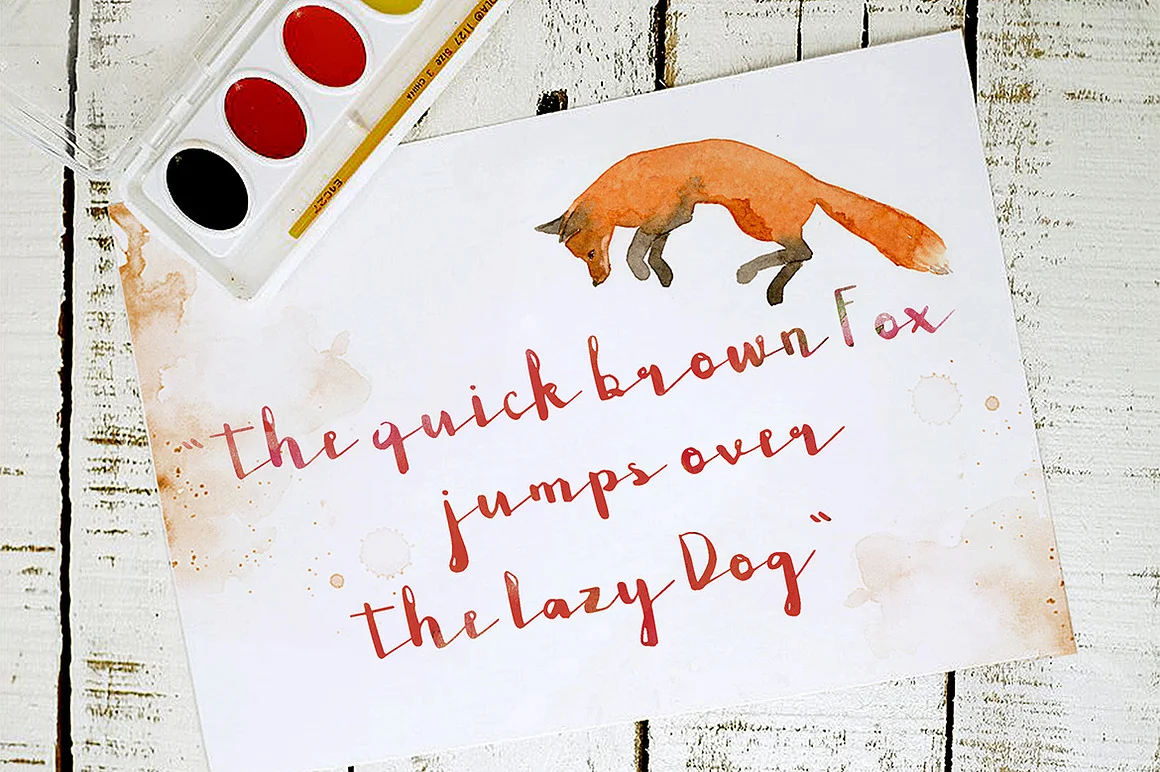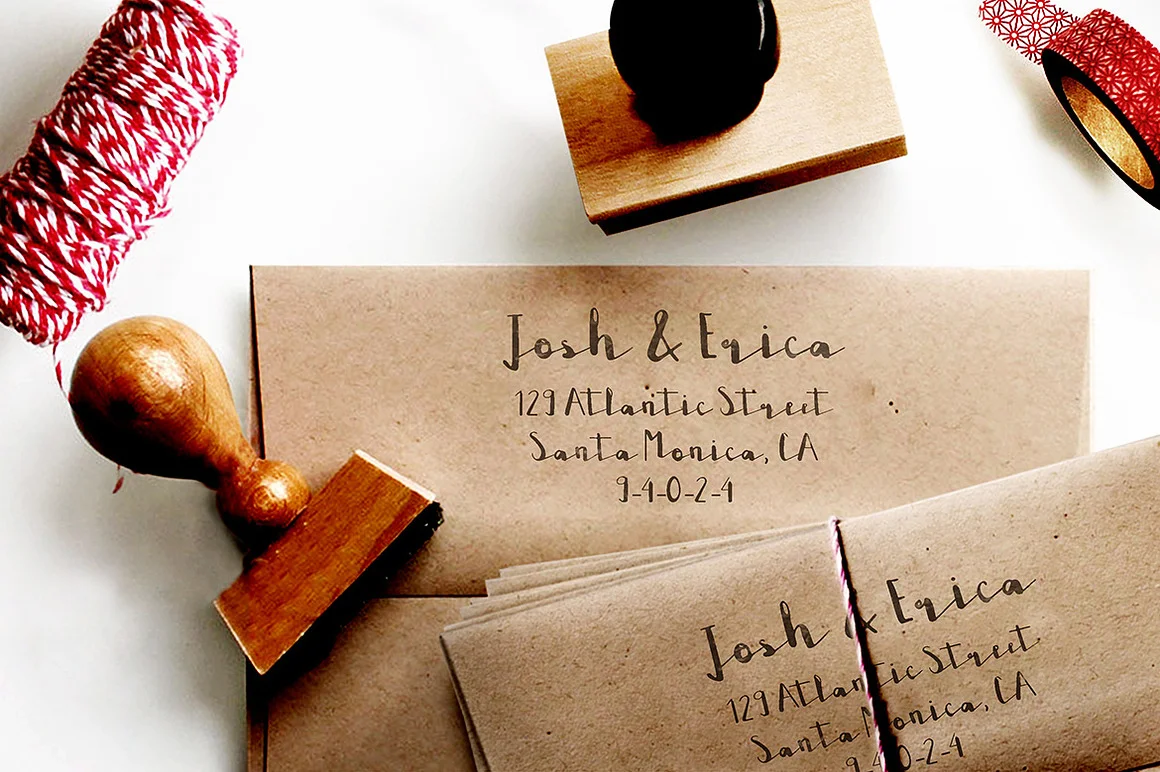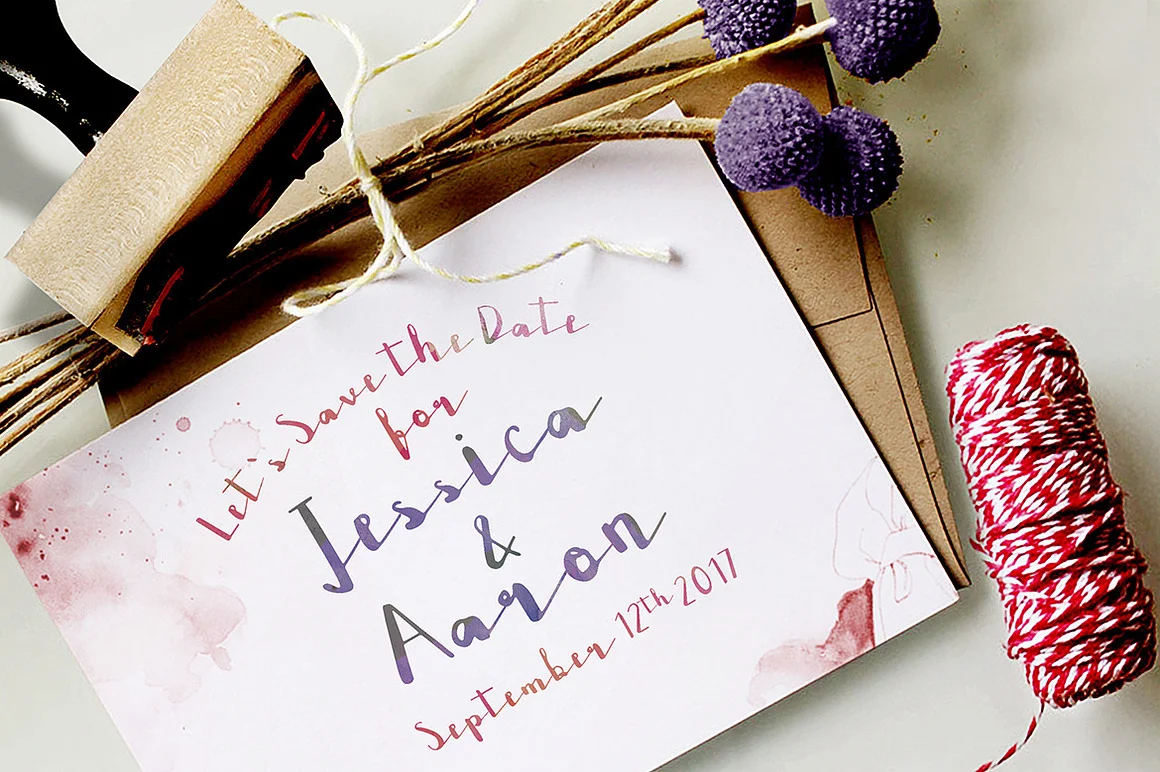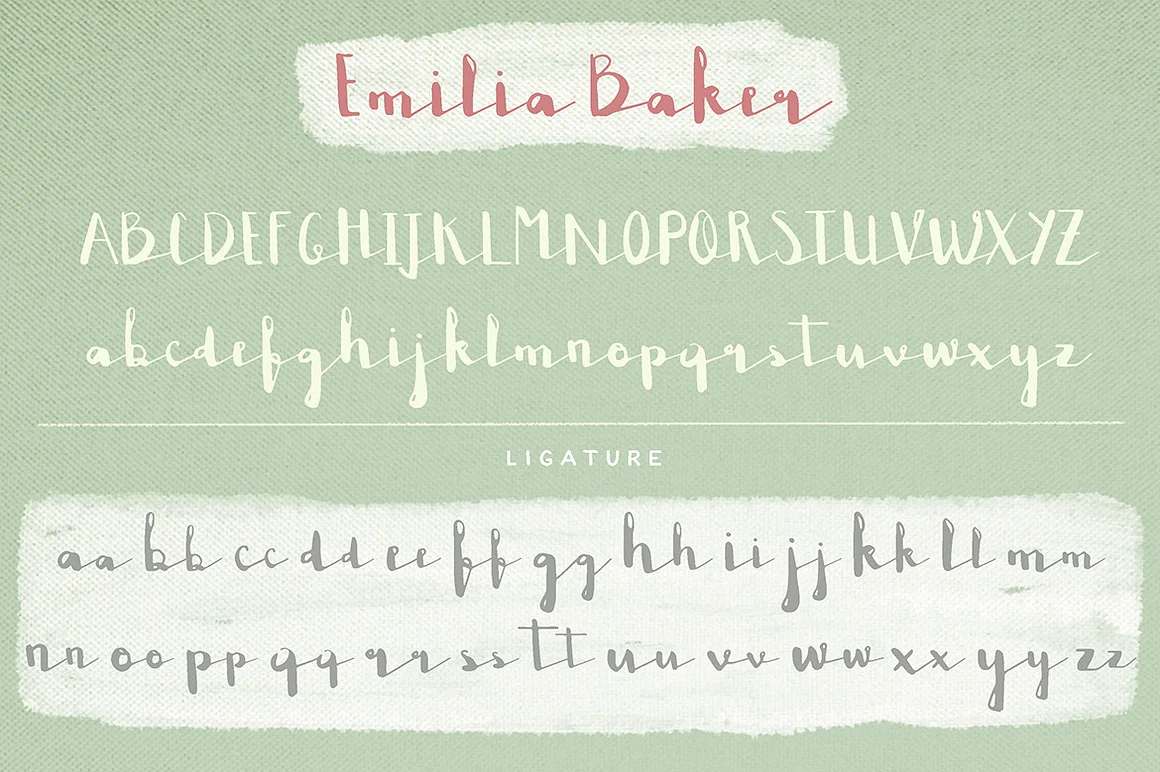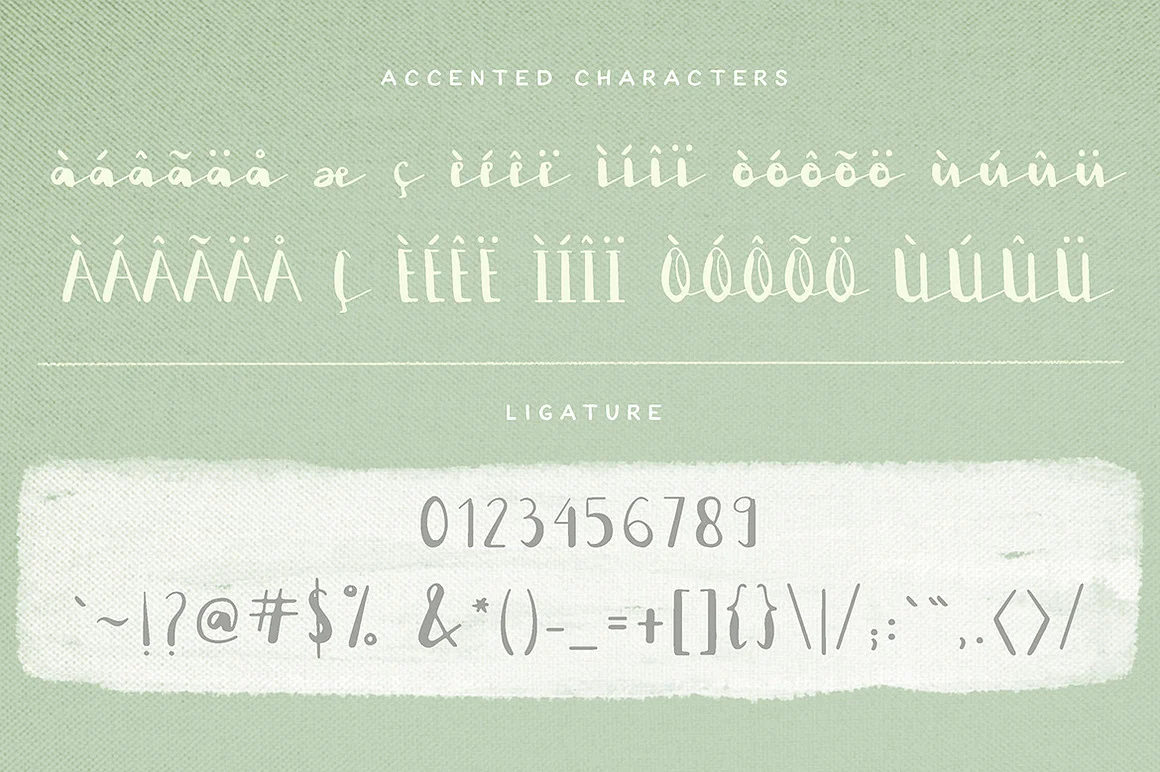
Emilia Baker Script Font
Emilia Baker Script Font is perfect for elegant wedding invitations, sophisticated branding projects, luxury fashion labels, premium beauty packaging, refined greeting cards, boutique logos, graceful social media graphics, upscale restaurant branding, exclusive event materials, and timeless feminine marketing campaigns.
What makes Emilia Baker Script Font so exciting is its sophisticated elegance that combines classical script beauty with contemporary refinement, creating typography that exudes timeless grace and premium quality. This exquisite script typeface embodies refined femininity and sophisticated charm, delivering visual communication that resonates with discerning audiences seeking authentic elegance.
The Emilia Baker Script Font family includes regular weight with extensive stylistic alternates, elegant flourishes, sophisticated ligatures, and graceful ornamental elements that provide designers with comprehensive tools for creating refined and memorable typography compositions that define luxury and sophistication.
Discover timeless sophistication with Emilia Baker Script Font, a masterfully crafted script typeface that brings classical elegance and refined grace to contemporary design projects. This exceptional font embodies the perfect fusion of traditional script artistry and modern precision, making it an essential tool for brands that demand uncompromising elegance and sophisticated presentation.
The elegantly proportioned letterforms of Emilia Baker Script Font showcase refined sophistication with graceful character that creates instant recognition of quality and timeless appeal. Each character displays meticulous attention to maintaining the classical elegance that defines premium script typography while ensuring contemporary readability and professional versatility. The font's flowing curves and refined spacing contribute to its sophisticated appearance and luxurious quality.
Luxury brands and sophisticated designers consistently choose Emilia Baker Script Font for projects requiring uncompromising elegance and refined presentation. The comprehensive character set includes uppercase and lowercase letters, numerals, extensive punctuation, international accents, and elegant decorative elements that provide complete support for luxury branding applications and sophisticated design compositions.
The enduring elegance of Emilia Baker Script Font ensures exceptional performance across both traditional print and modern digital platforms. Whether developing luxury brand identities, creating sophisticated wedding materials, or designing premium marketing campaigns, this remarkable typeface delivers consistent grace that resonates with audiences appreciating refined sophistication and timeless beauty.
Transform your most elegant projects with Emilia Baker Script Font. This extraordinary script typeface brings classical sophistication and refined elegance to typography, making it the definitive choice for designers who create experiences that celebrate the timeless beauty and enduring appeal of sophisticated feminine elegance.